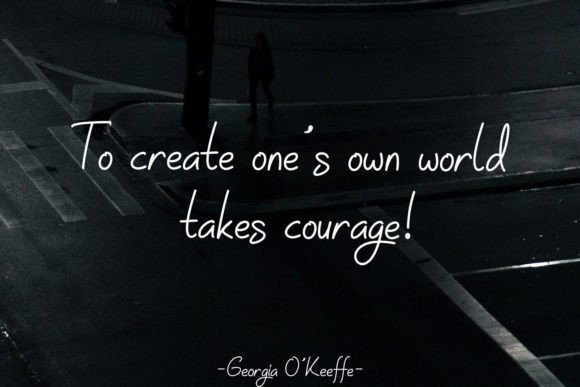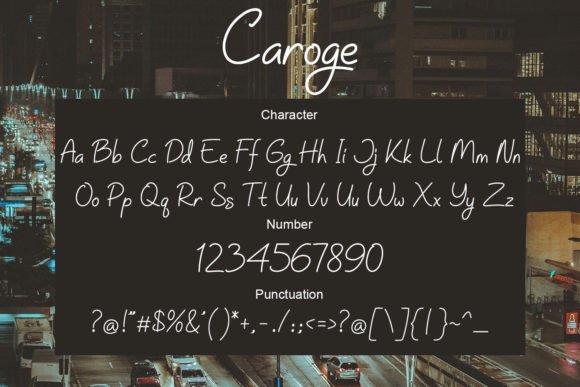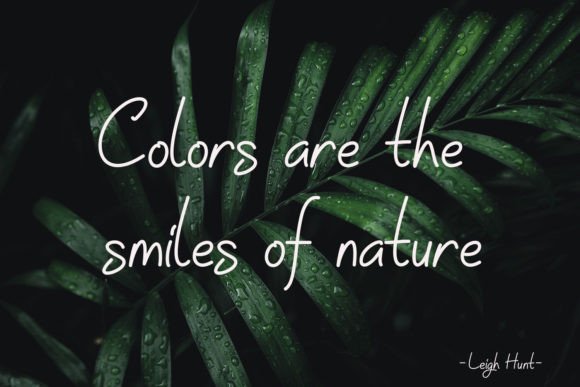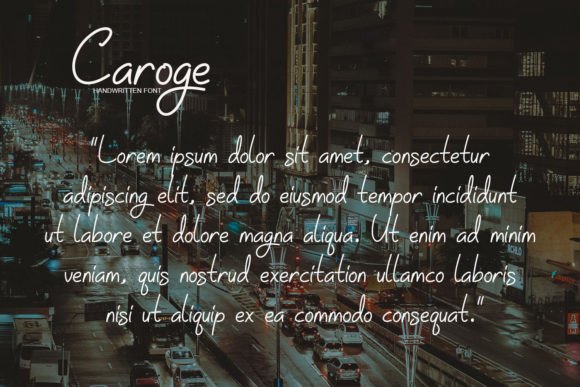
Introducing the Caroge Handwritten Font: Elevate Your Designs with Elegance and Artistry
In the world of typography, few fonts manage to capture the essence of elegance and artistry as effectively as the Caroge Handwritten Font. This beautiful, artistic font is designed to bring a personal and organic touch to your designs, making it the perfect choice for a wide range of creative projects. Whether you’re looking to add a touch of intimacy to your invitations, infuse personality into your logos, give your branding a unique spin, or inject creativity into your social media content, Caroge is the ideal solution.
The Unique Charm of Caroge
Caroge stands out in the world of typography due to its fluid and smooth feel. This handwritten font lends a visually pleasing and unique texture to your design endeavours, setting it apart from more conventional and rigid typefaces. The fluidity of Caroge not only makes it aesthetically pleasing but also highly versatile, capable of adapting to various design needs and styles.
Bringing Life to Your Text
One of the key benefits of using the Caroge Handwritten Font is its ability to breathe life into your text. Unlike standard fonts that can sometimes feel impersonal or generic, Caroge adds a human touch to your words. Its organic and personal essence makes your text feel more approachable and engaging, helping you to connect with your audience on a more intimate level.
Caroge’s versatility is one of its most compelling features. This font can be used across a variety of design platforms and for numerous purposes. Here are just a few examples of how you can utilize the Caroge Handwritten Font:
- Invitations: Add a touch of elegance and personal warmth to your event invitations, making them truly unforgettable.
- Logos: Infuse your brand’s logo with personality, making it stand out in a crowded marketplace.
- Branding: Give your brand a unique voice and aesthetic, helping you to build a stronger connection with your audience.
- Social Media Content: Elevate your social media posts with a creative and eye-catching font that captures attention and encourages engagement.
Why Choose Caroge?
With so many fonts available to designers and crafters, what sets Caroge apart? Here are a few reasons why Caroge should be your go-to choice for your typography needs:
- Elegance and Artistry: Caroge embodies a perfect blend of elegance and artistry, making your designs look sophisticated and refined.
- Personal Touch: The organic and personal essence of Caroge adds a unique warmth to your designs, making them more relatable and engaging.
- Versatility: From invitations and logos to branding and social media content, Caroge’s versatility knows no bounds.
- Easy to Use: Designed with user-friendliness in mind, Caroge can be easily integrated into various design projects, making it accessible to designers of all skill levels.
Amplify Your Design Aesthetics with Caroge
Incorporating the Caroge Handwritten Font into your designs is a straightforward way to amplify their aesthetic appeal. Its unique texture and fluid feel not only enhance the visual appeal of your projects but also contribute to a more engaging and memorable user experience. Whether you’re a professional designer or a crafter, Caroge provides the tools you need to elevate your work and make it stand out.
In conclusion, the Caroge Handwritten Font is more than just a typeface – it’s a design statement. With its elegance, artistry, and personal touch, Caroge offers a refreshing alternative to traditional fonts. By incorporating Caroge into your design repertoire, you’re not just choosing a font; you’re embracing a new way to communicate with your audience, one that is intimate, creative, and visually stunning.